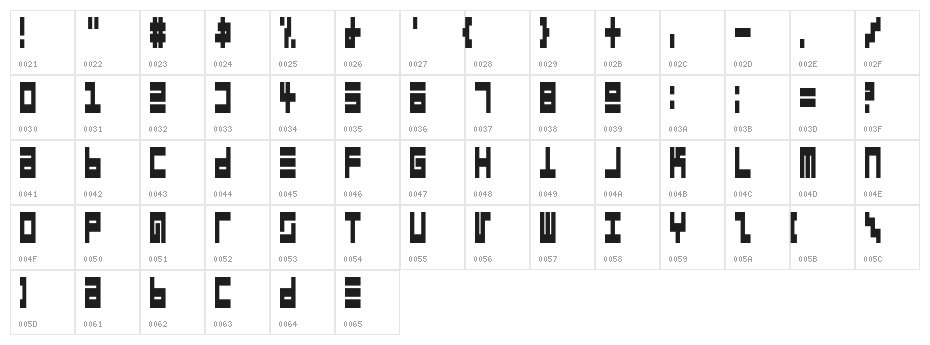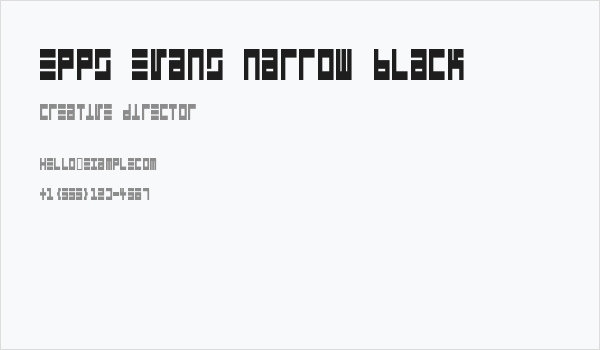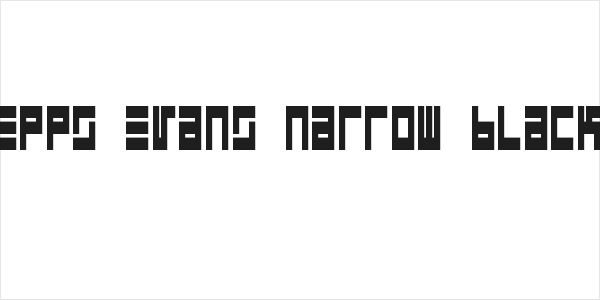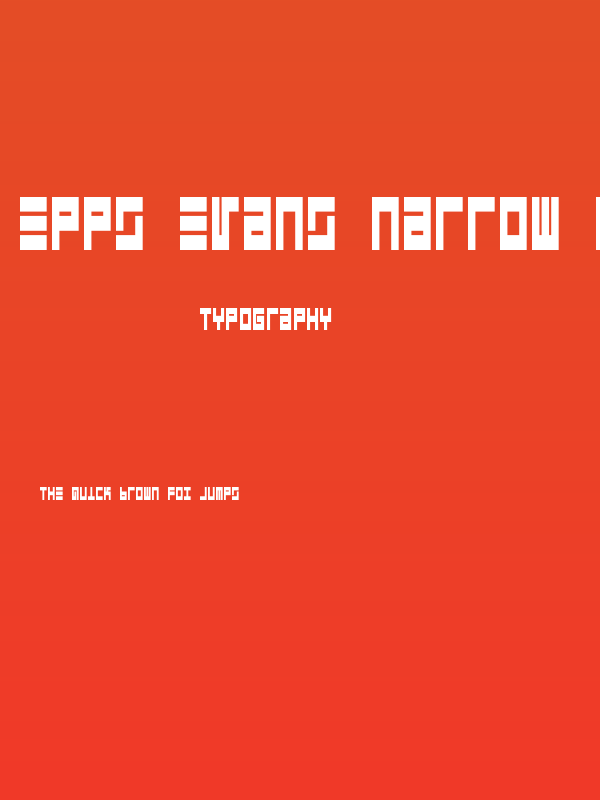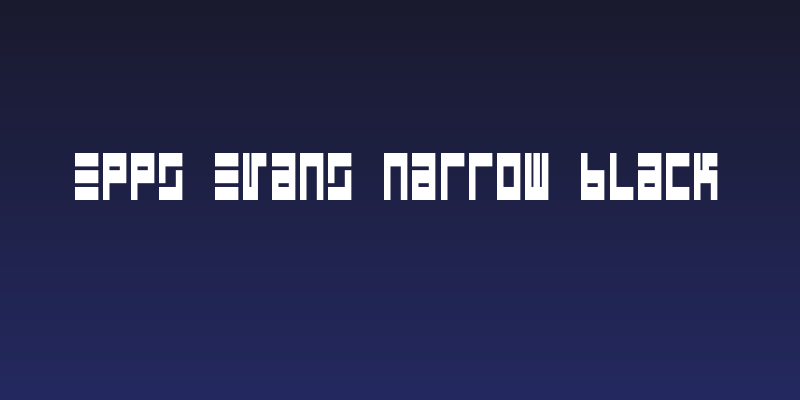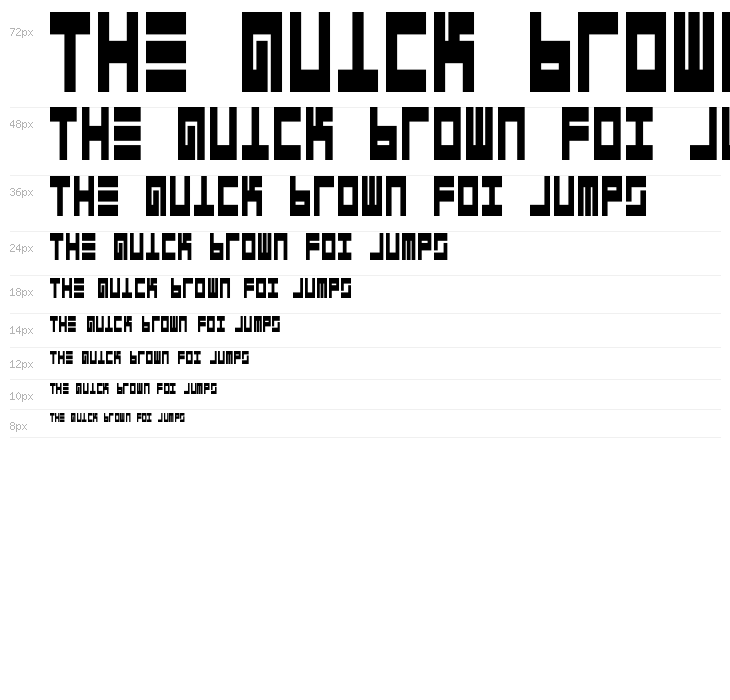
Epps Evans Narrow Black Font
Epps Evans Narrow Black Description
This font features a bold and geometric design with a distinctly modern and futuristic feel. The characters are constructed with thick, block-like strokes that create a strong visual impact. The design is highly angular, with sharp corners and straight lines dominating the letterforms. This gives the font a very structured and rigid appearance, making it ideal for projects that require a sense of strength and stability. The uppercase and lowercase letters maintain a consistent style, while the numerals and special characters follow the same geometric pattern, ensuring uniformity across all text. The overall aesthetic is striking and attention-grabbing, suitable for making bold statements.
| Proposed Projects | Ideal for headlines, posters, branding, and any design requiring a strong, impactful presence. |